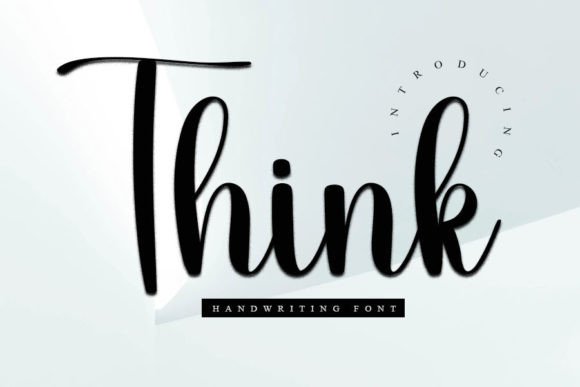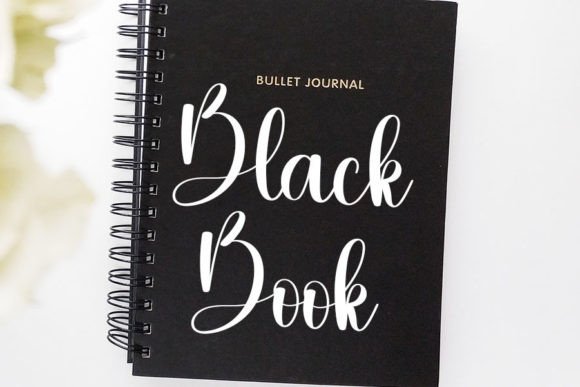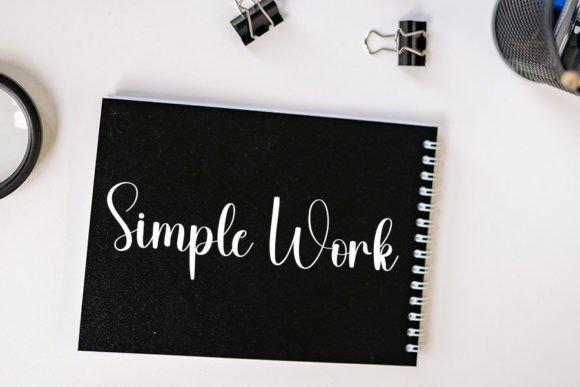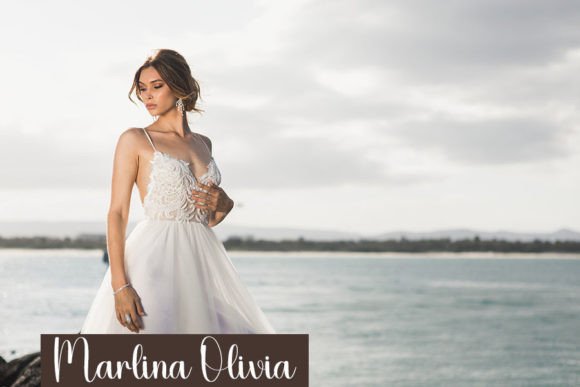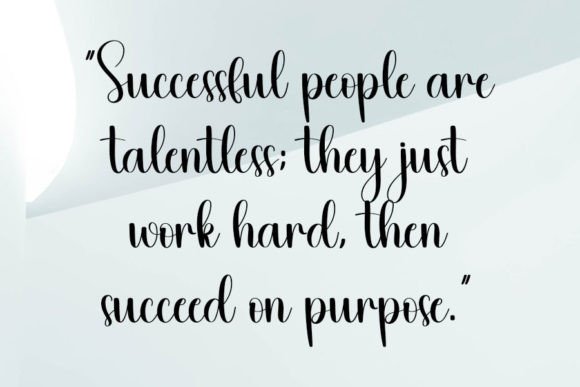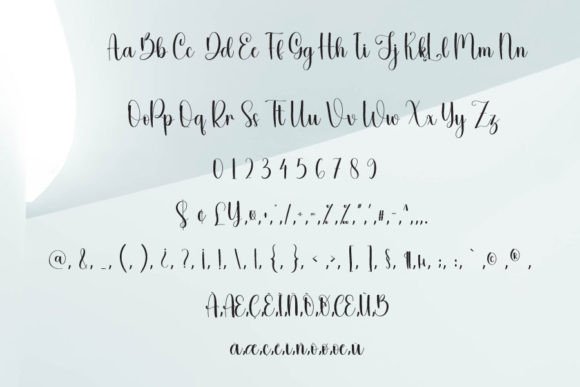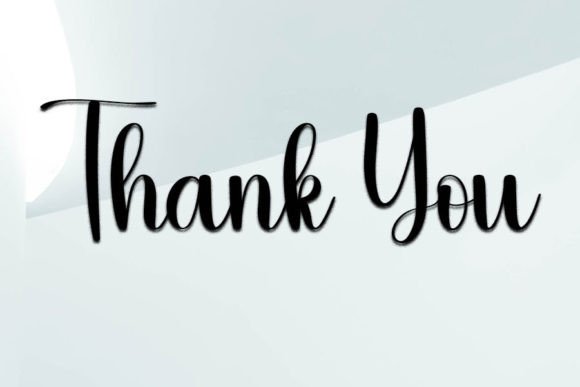
Think Font
About Think Font
Think Font is a fun and friendly handwritten typeface designed to bring creativity and warmth to your designs. Its approachable and casual strokes make it suitable for both print and digital uses, especially when you want to add a personal flair.
Whether you’re working on DIY crafts, classroom projects, or eye-catching digital content, Think Font adapts beautifully to your creative goals. Its smooth flow and rounded shapes keep everything easy to read while maintaining a playful vibe that draws attention.
Why Choose Think Font?
There are several reasons why Think Font should be in your creative toolkit:
• Fun and lighthearted – The handwriting style feels natural and approachable.
• Easy to use – It pairs well with other fonts or stands strong on its own.
• Flexible – Works across various types of materials and platforms.
• Balanced look – Each character is crafted to maintain legibility at all sizes.
Because of its natural rhythm and consistent curves, thisfont feels authentic and friendly without appearing childish.
Best Uses for Think Font
ThinkFont fits perfectly in many creative applications, such as:
• Greeting cards and thank you notes
• Social media graphics and quote images
• Event invitations and birthday signage
• Branding materials for playful or casual businesses
• Stickers, labels, and product tags
• Personal blog headers and lifestyle content
From personal scrapbooks to commercial use, thisfont helps your message feel more human and relatable.